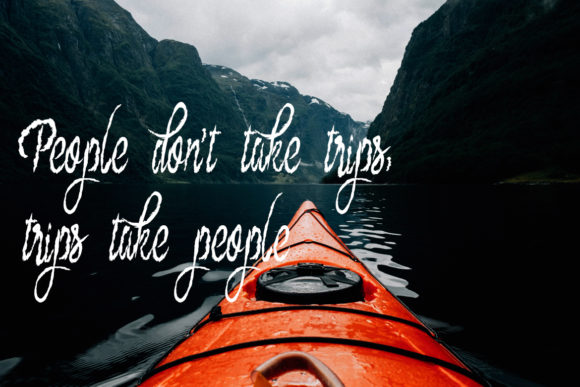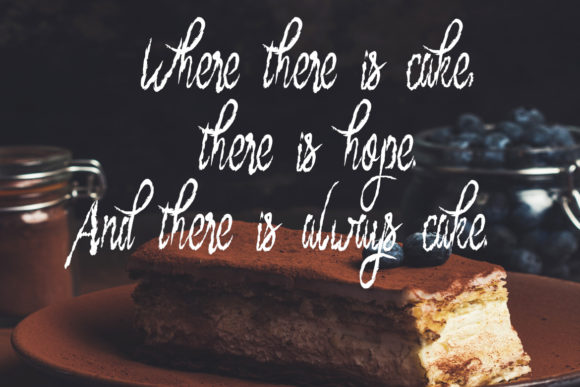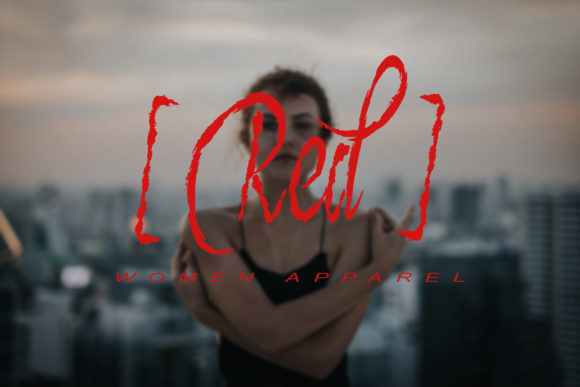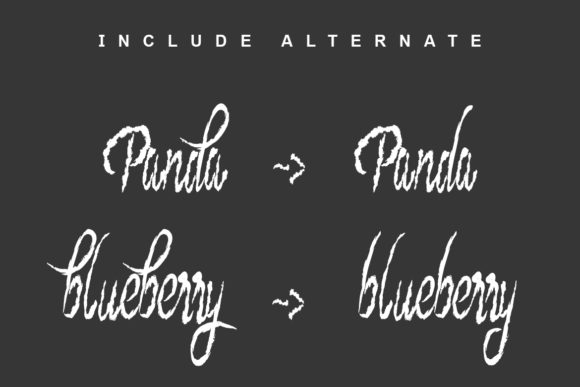
The Art of Handwritten Charm: Introducing the Blueberry Brush Font
Have you ever found yourself doodling in a notebook, trying to capture the perfect handwritten feel on paper? I know I have – it’s a moment of pure creativity, where the world outside fades away and all that’s left is the flow of ink and the rhythm of your hand. It’s a feeling that’s hard to replicate with digital tools, but what if I told you that there’s a font that can bring that same magic to your designs?
Meet the Blueberry Brush Font, a beautiful, authentic calligraphy font that adds a natural touch to any project. Whether you’re creating a logo, a wedding invitation, or a simple headline, this versatile font is sure to impress. And for designers, its value lies in its ability to evoke a sense of human touch, making your designs feel more approachable and relatable. With the Blueberry Brush Font, you can add a touch of handmade charm to your work, making it stand out in a world of digital noise.
Blueberry Brush Font Key Features
- Unique Characteristics: The Blueberry Brush Font features a distinctive, hand-drawn design with a blueberry-inspired color palette, giving it a unique and playful feel.
Designer Review: Blueberry Brush Font
I recently had the chance to work with the Blueberry Brush Font, and I must say it’s a unique addition to any design project. ✨ The font’s hand-drawn, brush-like quality adds a touch of warmth and personality to any text, making it perfect for creative projects or branding that needs a bit of whimsy.
Here are some of the things that I think work well with the Blueberry Brush Font:
- ✨ Unique, hand-drawn feel that adds character to text
- ✨ Versatile and suitable for a wide range of design projects, from creative to corporate
- ✨ Easy to read, even at smaller font sizes
- ⚠️ Limited font sizes available, which can make it difficult to use in larger-scale designs
- ⚠️ May not be suitable for projects that require a more formal or professional tone
- ⚠️ Some characters may not be fully compatible with certain fonts or design software
Overall, I think the Blueberry Brush Font is a great addition to any designer’s toolkit. While it may have some limitations, its unique quality and versatility make it a great choice for a wide range of design projects.
Tip: Use the Blueberry Brush Font for creating whimsical and playful designs, such as invitations, social media graphics, and branding materials.
Tip: Use the Blueberry Brush Font for creating hand-drawn or hand-painted effects in your designs.
Tip: Use the Blueberry Brush Font for creating eye-catching headings and titles in your presentations and documents.
The Blueberry Brush Font is suitable for a variety of designs, including:
- Branding materials
- Social media graphics
- Invitations and event materials
- Children’s books and educational materials
Alternatives to Blueberry Brush Font
Carolyna Pro is a modern calligraphy font that offers a range of styles and swashes. It’s ideal for creating elegant and sophisticated designs, such as wedding invitations, luxury branding, and high-end packaging.
Comparison to Blueberry Brush Font: While Blueberry Brush Font has a more casual and playful feel, Carolyna Pro is more refined and sophisticated. Carolyna Pro is better suited for formal designs, whereas Blueberry Brush Font is ideal for casual and creative projects.
Can I customize the Blueberry Brush Font to fit my specific design needs?
Yes, the Blueberry Brush Font is highly customizable. You can adjust the font size, color, and spacing to suit your design requirements. Additionally, the font’s OpenType features allow for advanced typographic controls, such as ligatures, swashes, and contextual alternates.